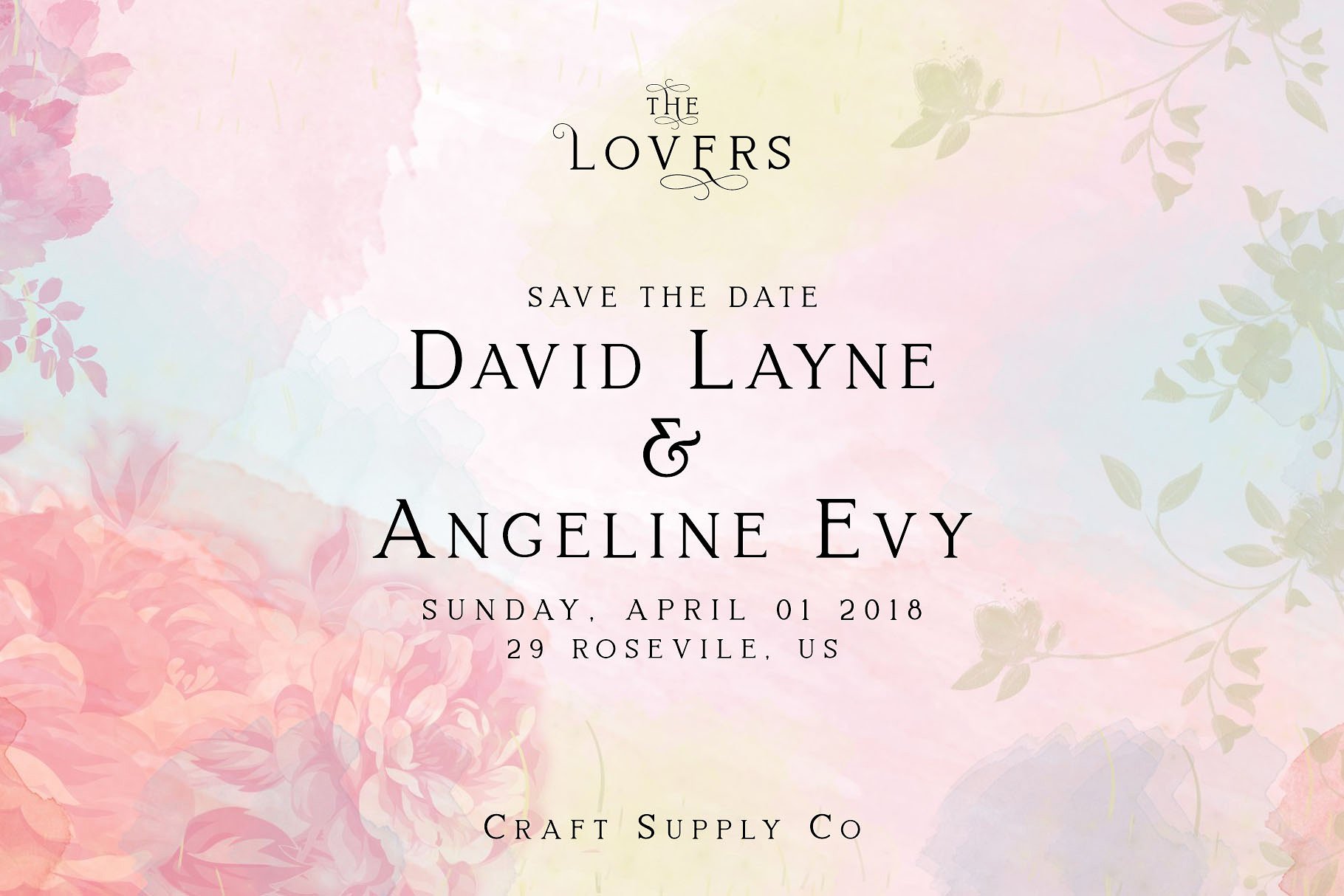
Lovelyn
Lovelyn Font
Introducing Lovelyn Font is an elegant serif font that offers a wide range of possibilities, especially for a lot of alternative. Lovelyn Font offers an attractive tool for producing elegant decorative lettering, for example, for book covers or for posters and packaging.
It does not have multilingual, full punctuation, and alternates alphabet.